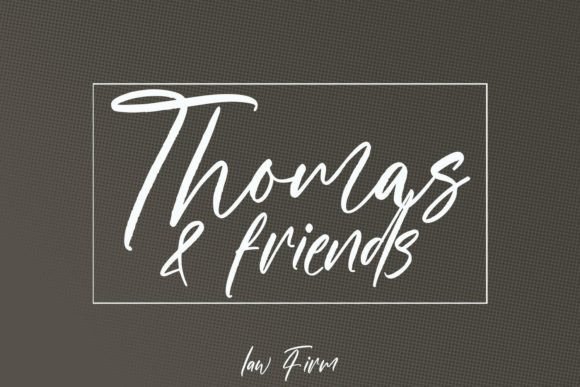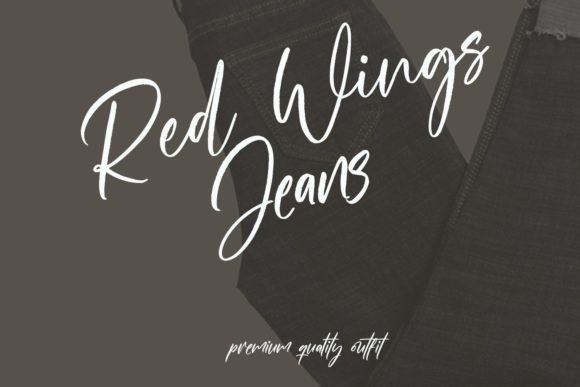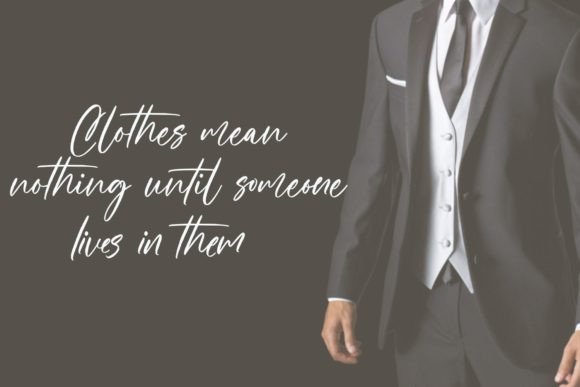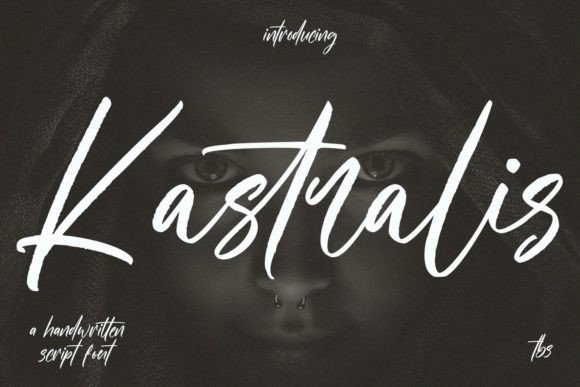
Introduction to Kastralis Font
Kastralis is a fancy and modern script font.
Key Features of Kastralis Font
Why Choose Kastralis Font?
Kastralis Font offers exceptional quality and versatility, making it a valuable addition to your design toolkit. Whether you’re creating for personal projects or commercial use, Kastralis Font delivers professional results.